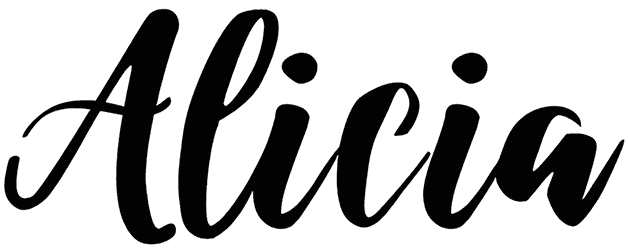
Alicia Font
Welcome to Alicia, a cursive brush font that adds the charming, delightful, and feminine feel you are looking for. The font style reminds you of fairy tales and princesses. This T-shirt font also gives you tools to desig…
Welcome to Alicia, a cursive brush font that adds the charming, delightful, and feminine feel you are looking for. The font style reminds you of fairy tales and princesses. This T-shirt font also gives you tools to design a handmade touch. Therefore, it’s perfect for wedding celebrations, quote printing decorations, posters, handmade designs, and lettering.